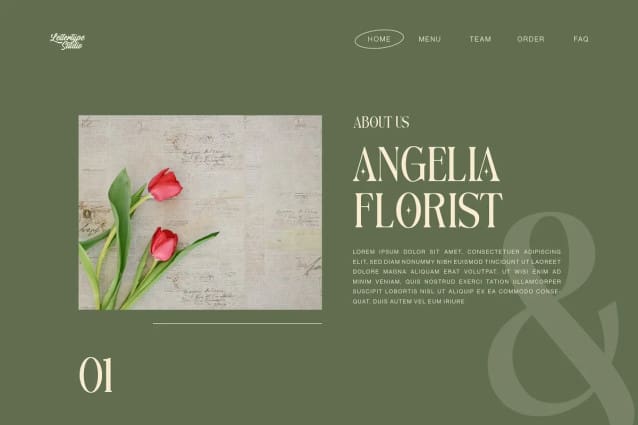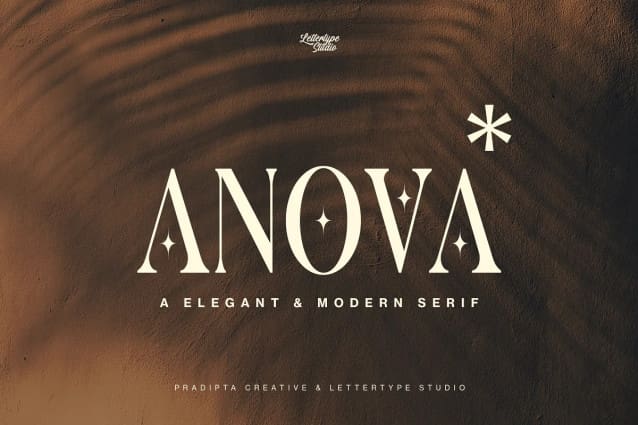
Anova Font
Anova Font – an elegant and modern serif. Anova comes with a luxury, classic, and modern feel serif font with a ton of stylistic set.
This font will be perfect for your logo design, branding, clothing, signage, posters, wedding invitations, cosmetics or fashion and so much more!
Anova will help your project or brand have a luxurious, classic, and modern look.